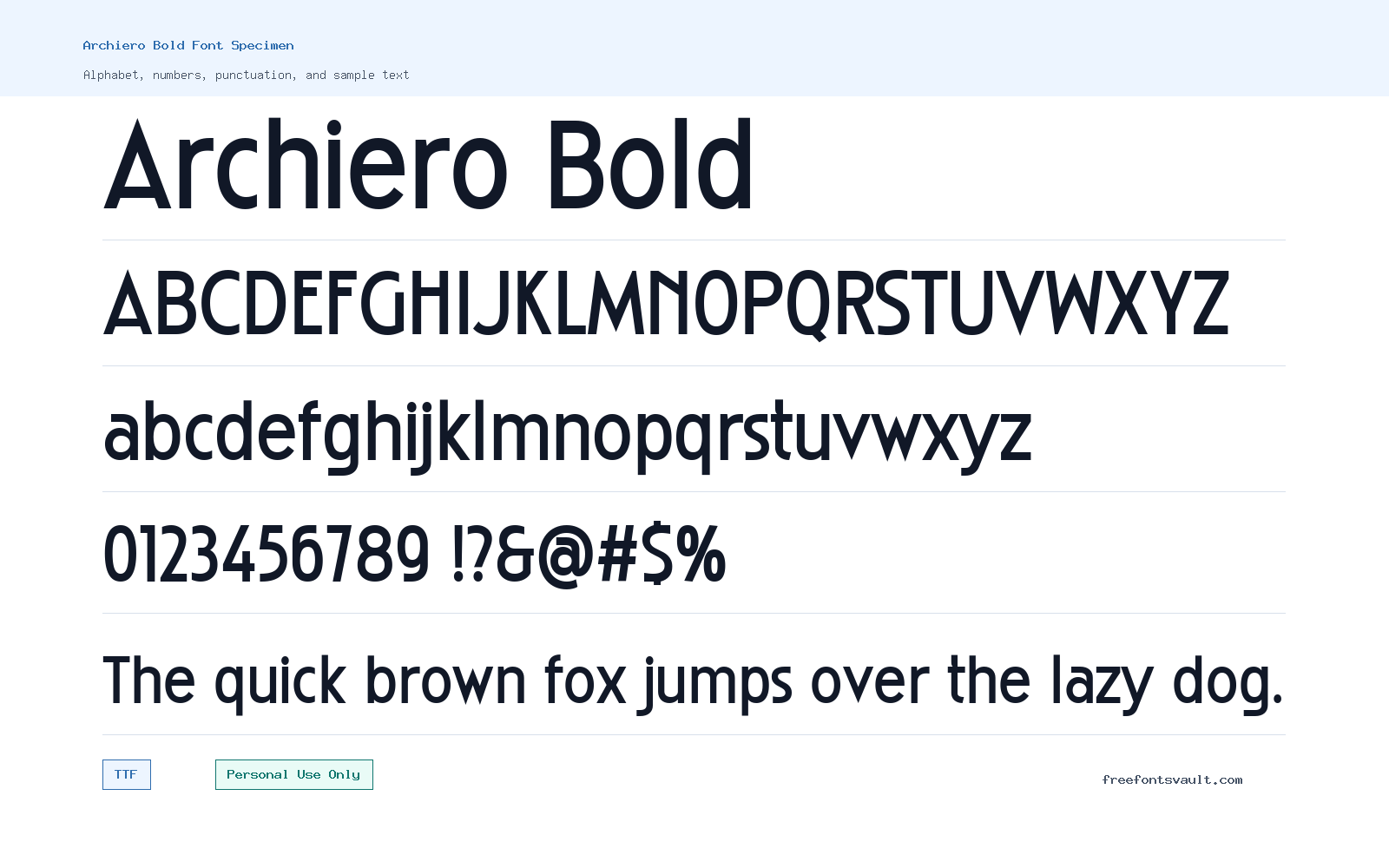
Archiero Bold
• Designer Glyphminds Studios
Archiero Bold is a bold sans serif font for personal design projects where the text needs a clear, confident look. It is best tested in short words, headings, and display-style layouts rather than long reading paragraphs.
About Archiero Bold
Archiero Bold comes as a TTF font file with a bold 700 weight and normal style. Its name and license label identify it as part of the Archiero Sans Serif font, so visitors can expect a clean sans serif direction with a heavier presence on the page. Use the preview box to check how the letter shapes handle your exact text, especially if your design includes brand names, numbers, punctuation, or mixed uppercase and lowercase words.
• Bold 700 weight for strong headings, title text, and short display lines.
• Sans serif styling that works best when the layout needs simple, direct lettering.
• Personal poster titles, quote graphics, and event mockups.
• Large website hero text or app mockups during the design testing stage.
The designer is listed as Glyphminds Studios. No foundry name is listed for this font entry.
Start by previewing Archiero Bold at large sizes, then test it at the smallest size your design will use. Bold sans serif fonts can look strong in titles but may feel heavy in long paragraphs, so pair it with a lighter, quieter text font for body copy. Leave enough spacing around the words, and check that similar characters, numbers, and punctuation remain clear in your layout.
What is Archiero Bold best used for?
It is best for short, bold text such as titles, posters, mockups, logo drafts, and personal social graphics. For long paragraphs, use it sparingly and pair it with a more readable body font.